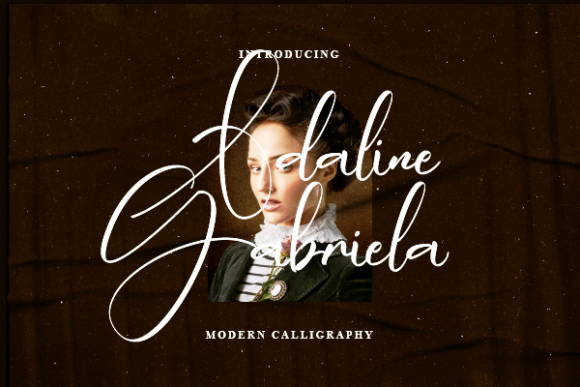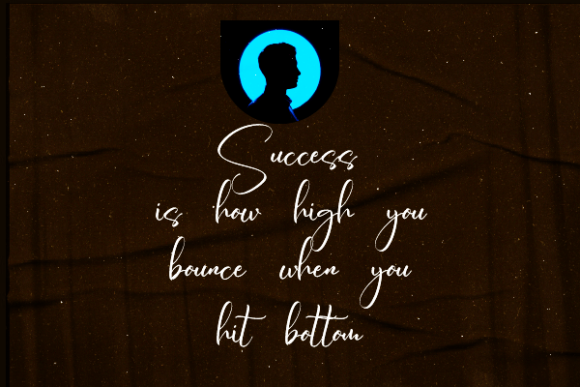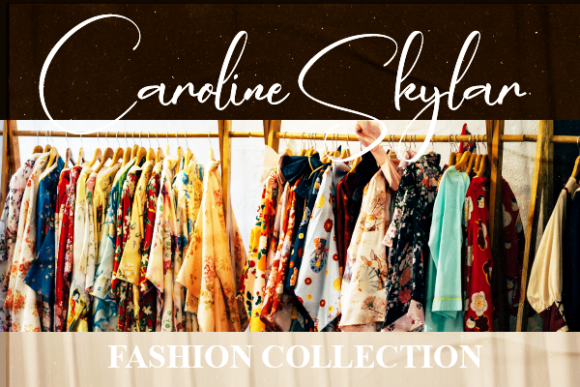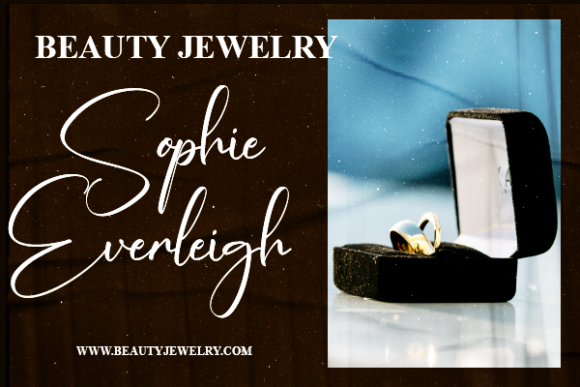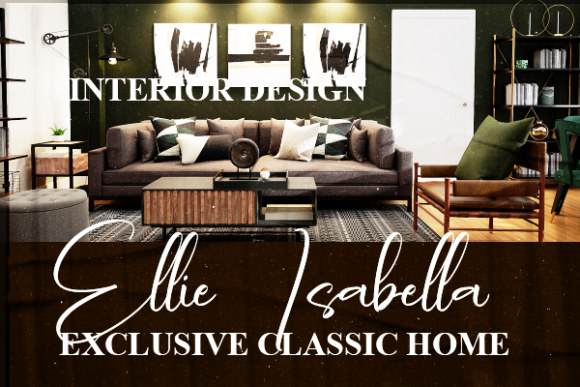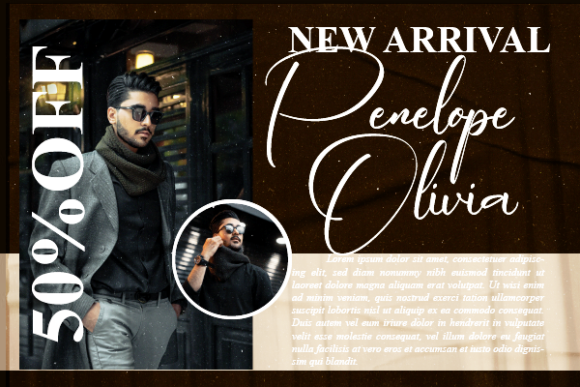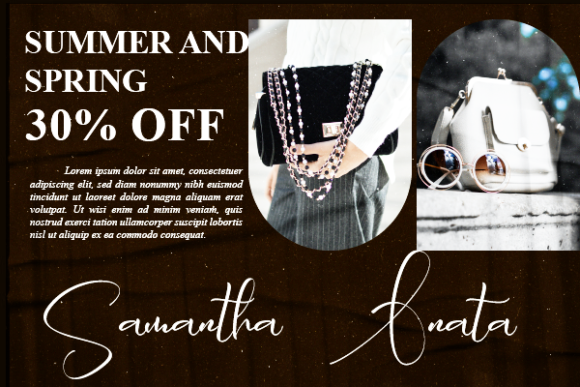
About Adaline Gabriela Font
“Adaline Gabriela” is an exquisite and refined script font that embodies a sense of timeless beauty and sophistication. With its delicate and flowing letterforms, this font brings an air of elegance to every project it graces.
Imagine using “Adaline Gabriela” for a high-end brand logo. The font’s graceful strokes and impeccable form lend a sense of prestige and luxury to your brand identity, instantly capturing the attention of your target audience and conveying a sense of exclusivity.
For t-shirt printing, “Adaline Gabriela” adds a touch of fashionable flair to your designs. Whether it’s a catchy slogan, a bold statement, or a trendy graphic, the font’s elegant style enhances the visual appeal of your merchandise, making it a must-have for those who appreciate chic and sophisticated fashion.
When it comes to creative products, “Adaline Gabriela” elevates your offerings with its refined charm. From art prints to home decor items, the font’s delicate letterforms add a sense of sophistication that resonates with discerning customers, making your products stand out in a crowded market.
Invitations and stationery are transformed by “Adaline Gabriela.” Whether you’re designing wedding invitations, event programs, or personalized stationery, the font’s graceful curves and intricate details create an atmosphere of romance and beauty, setting the perfect tone for special occasions.
Social media posts and graphics come to life with “Adaline Gabriela.” Its delicate and fashionable style adds a touch of glamour and allure to your visuals, making your content more visually appealing and shareable. From inspirational quotes to lifestyle imagery, the font enhances the overall aesthetic of your social media presence.
In editorial design, “Adaline Gabriela” can be used to create stunning magazine covers, editorial layouts, and book titles. Its timeless elegance and versatility make it a perfect choice for enhancing the visual impact of editorial content, drawing readers in and adding a touch of sophistication.
In summary, “Adaline Gabriela” is more than just a font – it’s a symbol of refinement and style. Its delicate and fashionable nature makes it an ideal choice for enhancing branding, products, and designs across a wide range of contexts. With its ability to exude elegance and capture attention, “Adaline Gabriela” is a valuable tool for adding a touch of luxury and beauty to any creative project.